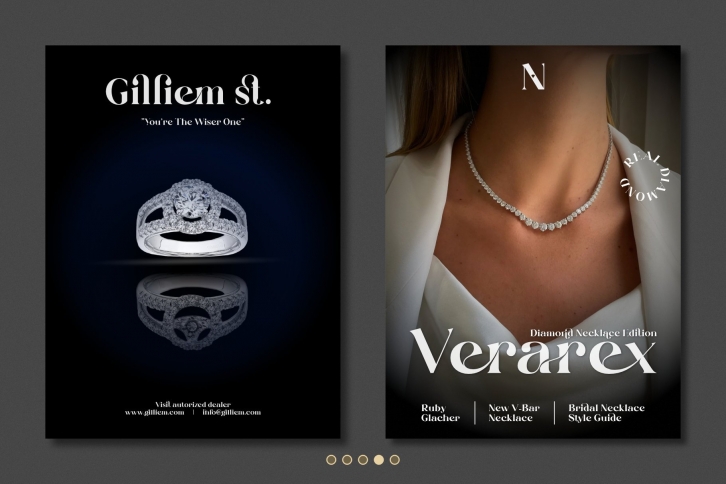
Yolinda Unique Typeface inspired by the famous minimalist logo perfect for the purposes of designing templates, brochures, videos, advertising branding, logos and more.